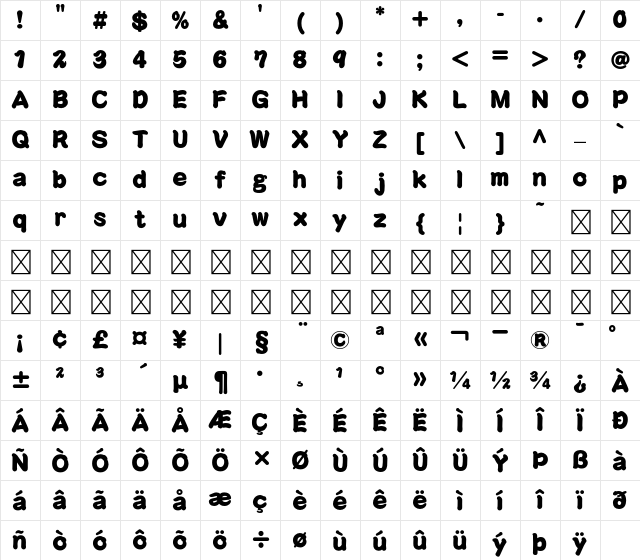
A-OTF Kanteiryu Std Ultra Free Font
A-OTF Kanteiryu Std Ultra
Style: Ultra
Design Context for A-OTF Kanteiryu Std
A-OTF Kanteiryu Std is a composed and adaptable typeface that performs quietly and consistently across a wide range of design contexts.
Pro Tip: Use A-OTF Kanteiryu Std in both headline and body roles to test its range before committing to a single application.